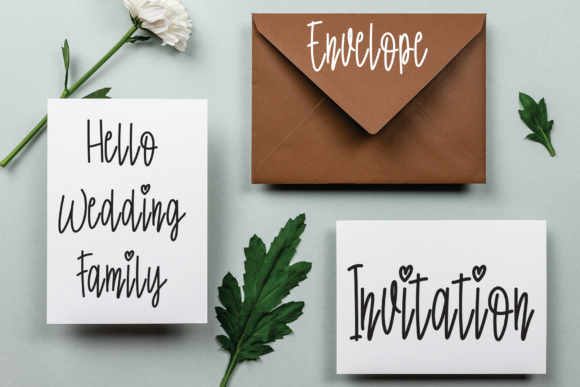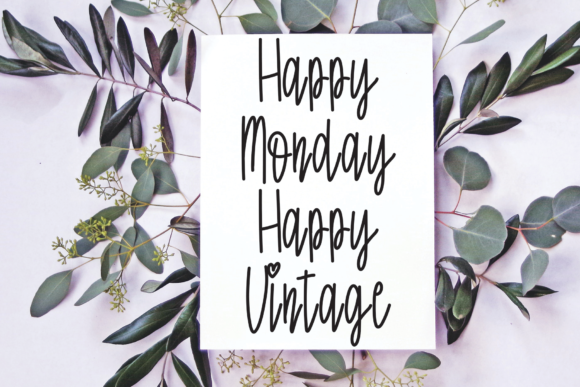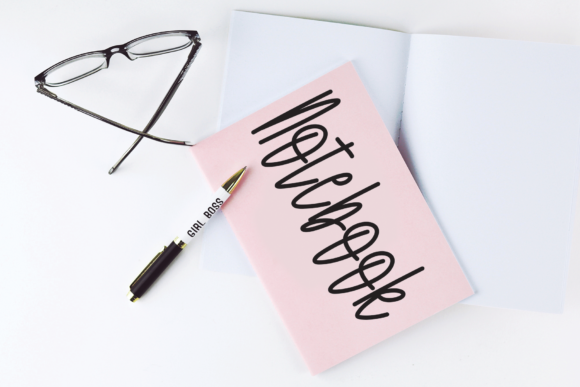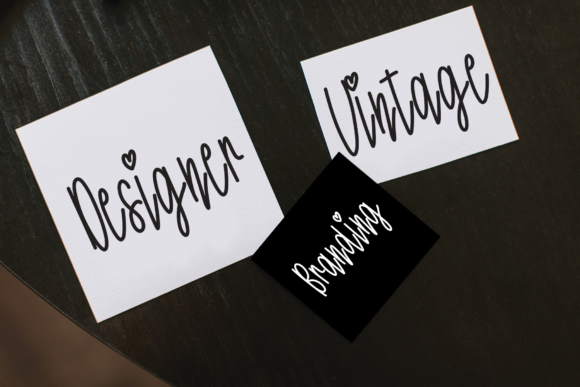
Introducing Flowers September Font: The Perfect Addition to Your Design Arsenal
Are you a designer or crafter looking for a unique and stylish font to elevate your projects? Look no further than Flowers September Font. This beautiful, thin, casual, and flowing handwritten font is sure to capture your heart with its effortless charm and elegance. In this article, we’ll dive into the features and benefits of Flowers September Font, and explore how it can become the perfect match for your design needs.
What is Flowers September Font?
Flowers September Font is a carefully crafted, handwritten font that exudes a sense of casual sophistication. Its thin and flowing lines create a beautiful, airy feel that’s perfect for a wide range of design projects, from wedding invitations and branding materials to blog posts and social media graphics.
Key Features of Flowers September Font
So, what makes Flowers September Font so special? Here are just a few of its key features:
- Thin and Casual Lines: Flowers September Font boasts delicate, hand-drawn lines that give it a light, airy feel.
- Stylish Alternates: The font comes with a range of stylish alternates, allowing you to mix and match letters to create a unique look.
- Ligatures: Flowers September Font also features ligatures, which help to create a more natural, flowing feel.
- Handwritten Charm: The font’s handwritten nature gives it a warm, personal feel that’s perfect for designs that need a touch of personality.
Why Choose Flowers September Font?
With so many fonts to choose from, why should you opt for Flowers September Font? Here are just a few compelling reasons:
- Versatility: Flowers September Font is incredibly versatile, making it suitable for a wide range of design projects.
- Elegance: The font’s thin lines and stylish alternates give it an undeniable air of elegance.
- Easy to Read: Despite its delicate nature, Flowers September Font is surprisingly easy to read, even at smaller sizes.
- Unique Look: The font’s handwritten alternates and ligatures help to create a unique look that’s sure to set your designs apart.
How to Use Flowers September Font in Your Designs
So, how can you incorporate Flowers September Font into your designs? Here are a few ideas to get you started:
- Wedding Invitations: Flowers September Font is perfect for wedding invitations, with its elegant lines and romantic feel.
- Branding Materials: Use the font to create beautiful branding materials, such as business cards and letterheads.
- Blog Posts: Add a touch of personality to your blog posts with Flowers September Font.
- Social Media Graphics: Use the font to create eye-catching social media graphics that are sure to grab attention.
Tips for Getting the Most Out of Flowers September Font
To get the most out of Flowers September Font, here are a few tips to keep in mind:
- Experiment with Alternates: Don’t be afraid to experiment with the font’s stylish alternates to create a unique look.
- Use Ligatures: Make use of the font’s ligatures to create a more natural, flowing feel.
- Pair with Other Fonts: Try pairing Flowers September Font with other fonts to create a beautiful contrast.
In conclusion, Flowers September Font is a beautiful, versatile font that’s perfect for designers and crafters looking to add a touch of elegance to their projects. With its thin, casual lines, stylish alternates, and ligatures, this font is sure to become a staple in your design arsenal. So why not give it a try and see how it can elevate your designs?